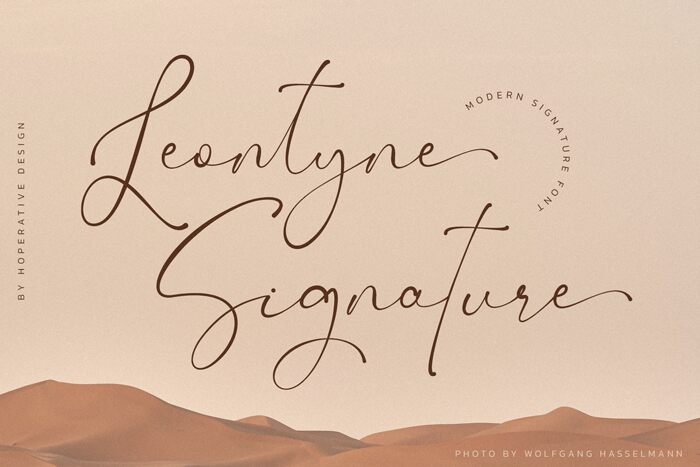
Leontyne Signature, crafted by Hoperative, is an exquisite and elegant handwritten font with an extra-light weight. This unique typeface embodies a sophisticated and personal touch, making it perfect for various creative projects. From wedding invitations to luxury branding, Leontyne Signature adds a refined and graceful flair to any design. Its flowing strokes and authentic feel evoke feelings of elegance and exclusivity. Whether used for fashion magazines or high-end product packaging, this font captivates viewers with its luxurious appeal while ensuring readability across digital platforms. Let Leontyne Signature elevate your next project to new heights of sophistication.